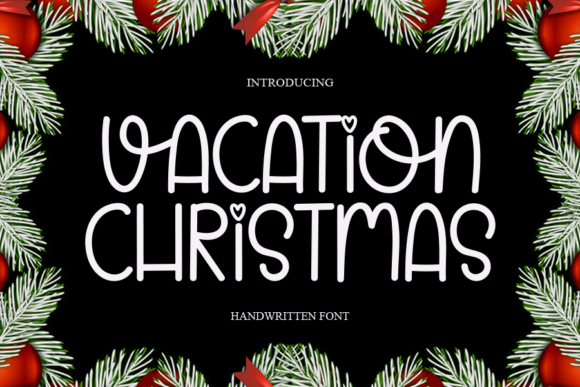
Prepare yourself to be captivated by the Vacation Christmas Font, a script masterpiece that embodies the essence of handwritten elegance, while maintaining a modern and refreshing touch. Inspired by the festive spirit of Christmas, this font exudes a captivating charm that will bring warmth and joy to any creative endeavor.
Vacation Christmas Font is more than just a digital creation; it's a testament to the power of imagination and the beauty of the holiday season. Its flowing lines and graceful curves will transport you to a realm of winter wonderlands, where snowflakes dance in perfect harmony, and the spirit of giving fills the air.
Whether you're designing enchanting brochures, crafting heartfelt greeting cards, or creating social media posts that spread holiday cheer, Vacation Christmas Font is your perfect companion. Its versatility knows no bounds, allowing you to weave words into captivating stories that resonate with your audience.
With Vacation Christmas Font, every word you write becomes a work of art, imbued with the magic of the season. Its unique style adds a touch of whimsy and charm to any creation, elevating it from ordinary to extraordinary.